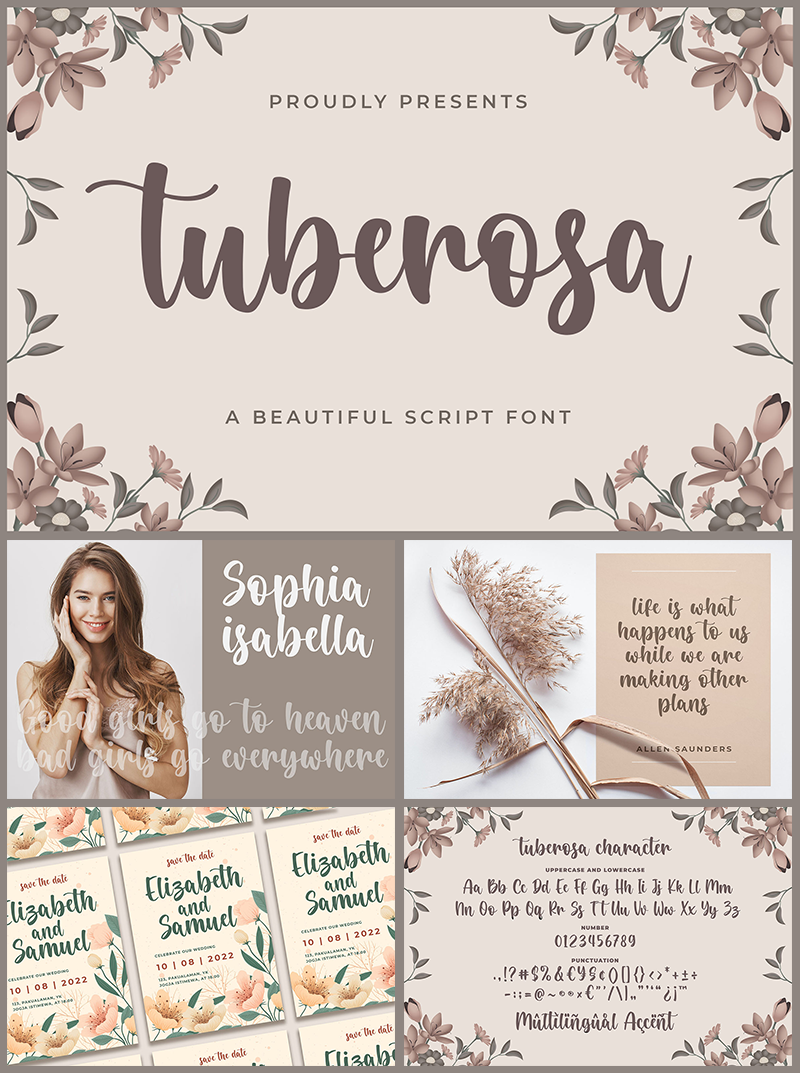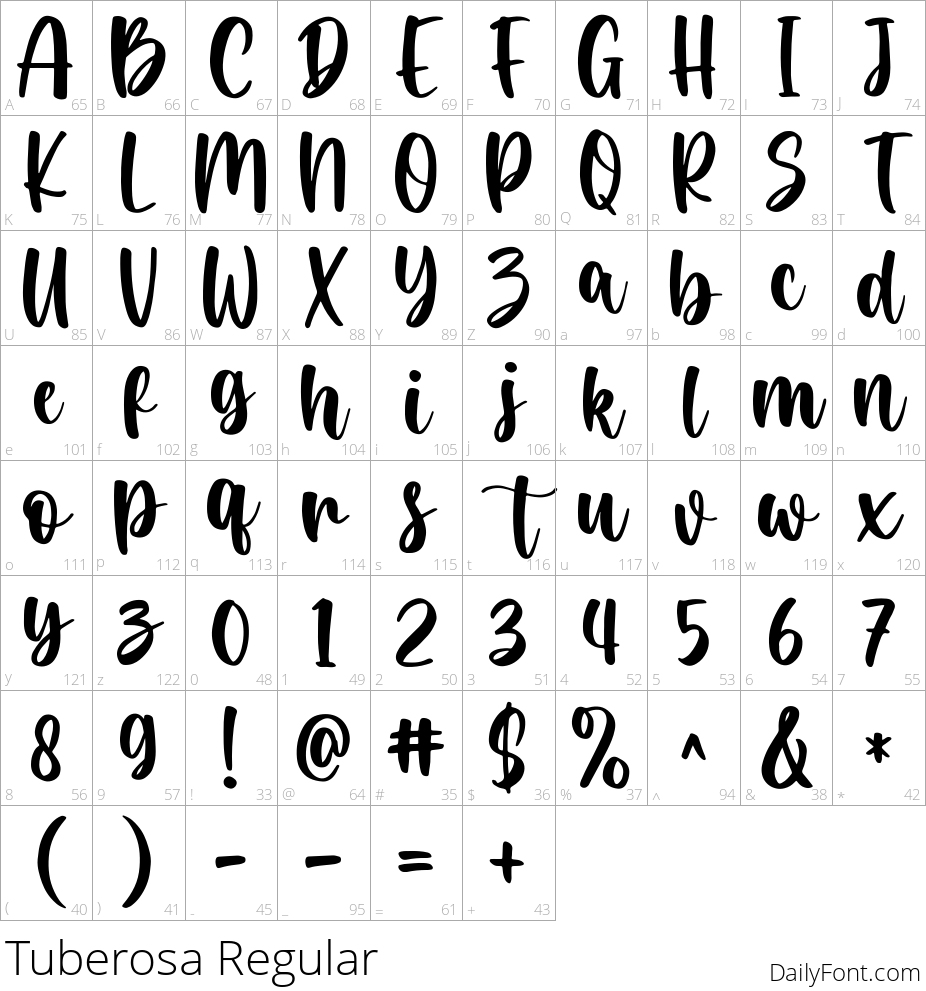
Tuberosa
Tuberosa is an elegant handwritten font that captures the essence of beauty and creativity. With its flowing script and well-balanced characters, Tuberosa stands out in any design project, making it the perfect choice for invitations, branding, and artistic endeavors. Whether you're creating a personal project or a professional piece, Tuberosa elevates your work with its unique charm and sophistication. It's versatile enough to complement a wide range of aesthetics, allowing you to express your ideas with flair. The enchanting curves and stylish strokes bring a personal touch to your designs. Try Tuberosa and watch as it transforms your creative visions into stunning realities, captivating your audience and leaving a lasting impression. Ideal for both digital and print applications, Tuberosa is the font that breathes life into your most imaginative concepts.